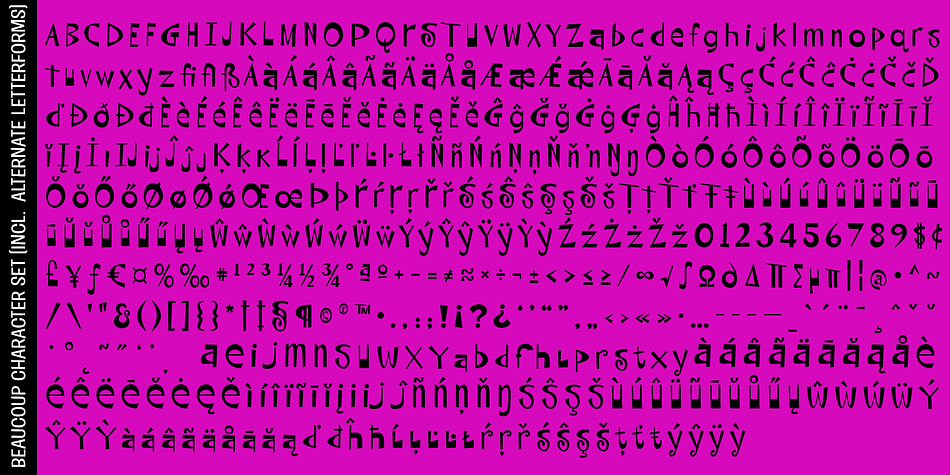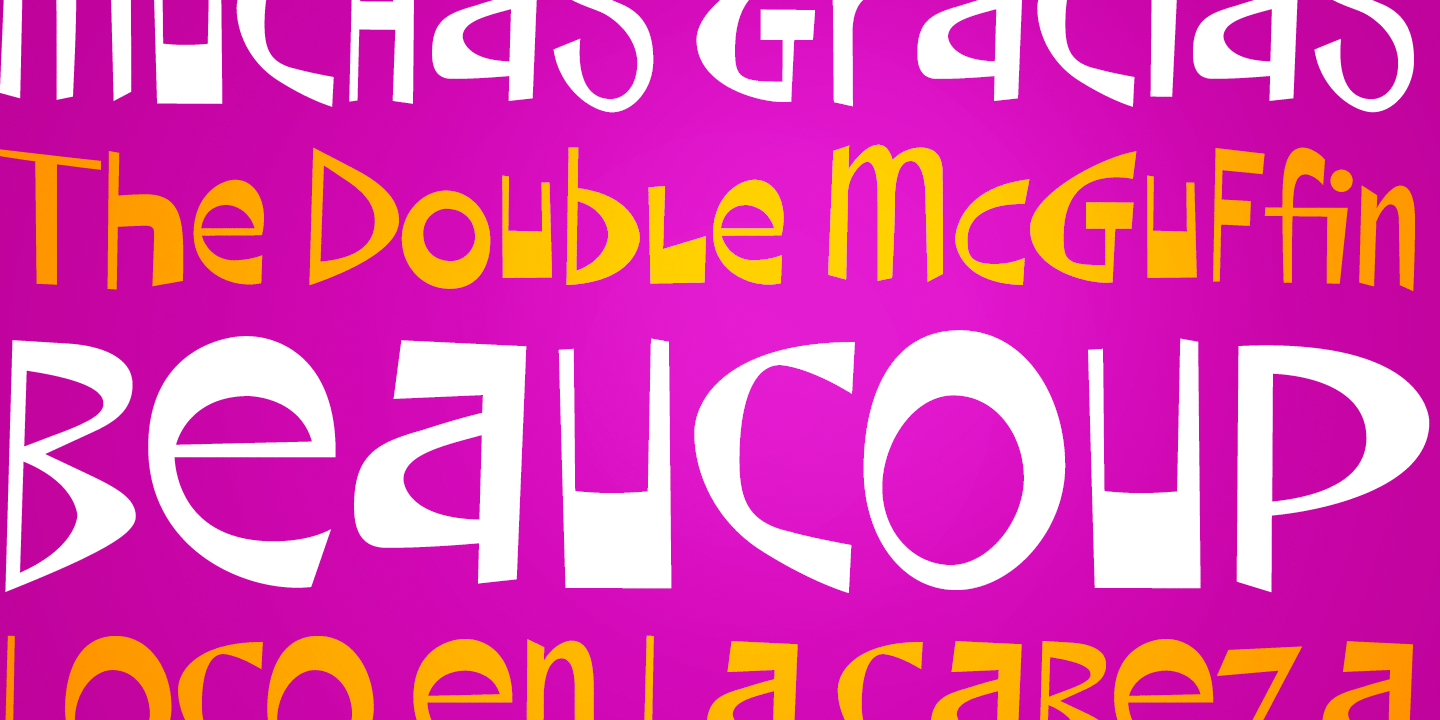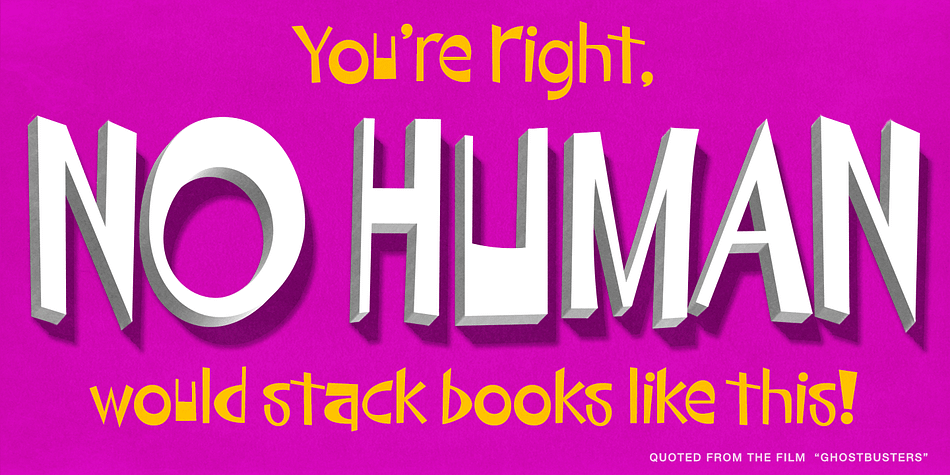
Designed by Phil Bracco, Beaucoup PB is a hand display font published by Pink Broccoli.
A totally off the wall crazy sans serif display type, Beaucoup started as a digitization of a film typeface called “Bippie” by Facsimile Fonts. From there, it was taken and built out to an extensive character set ready to take you for a wild ride.
Completely loco, yet somehow still easily legible, this typographic wildchild is dying for you to get your grubby little hands on it and take it for a spin!